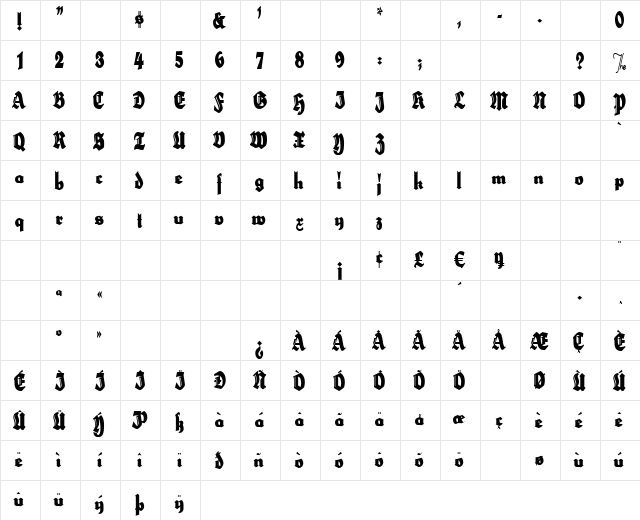
HerzogVonGraf Normal Font Preview
HerzogVonGraf Normal
Design Context for HerzogVonGraf Typeface
HerzogVonGraf is a composed and adaptable typeface that performs quietly and consistently across a wide range of design contexts.